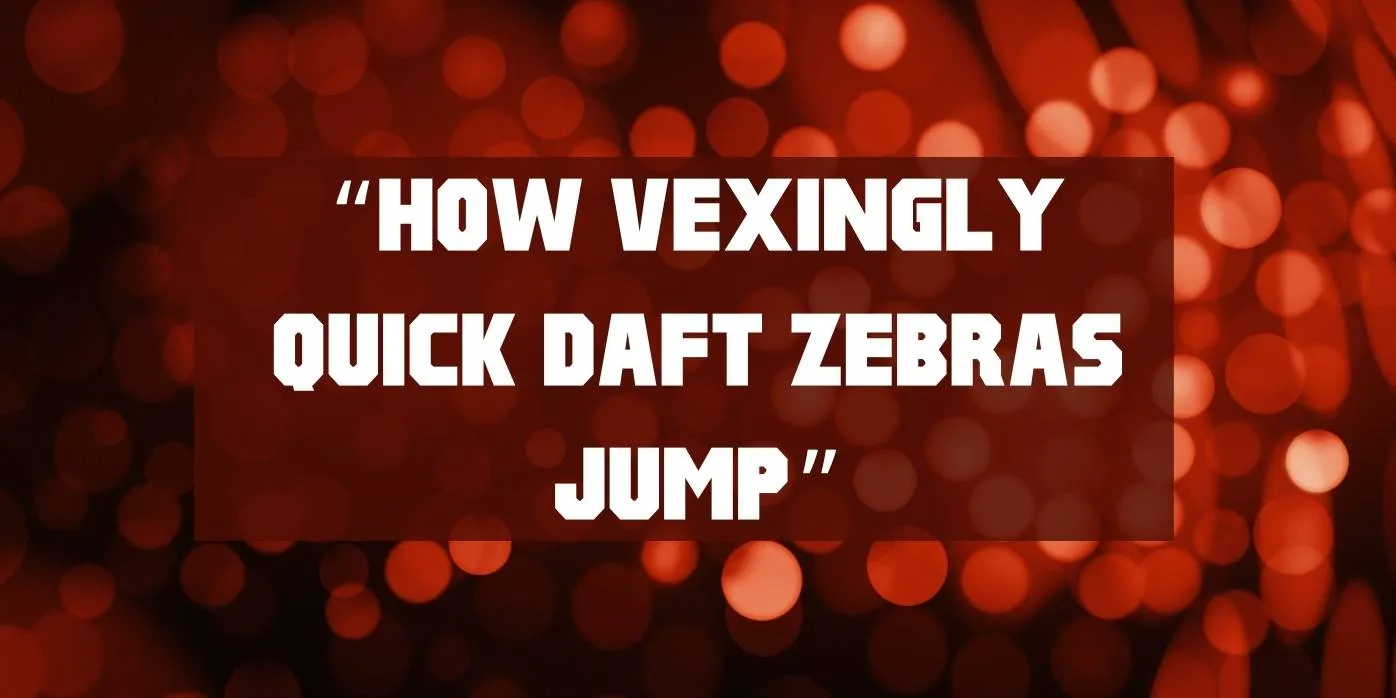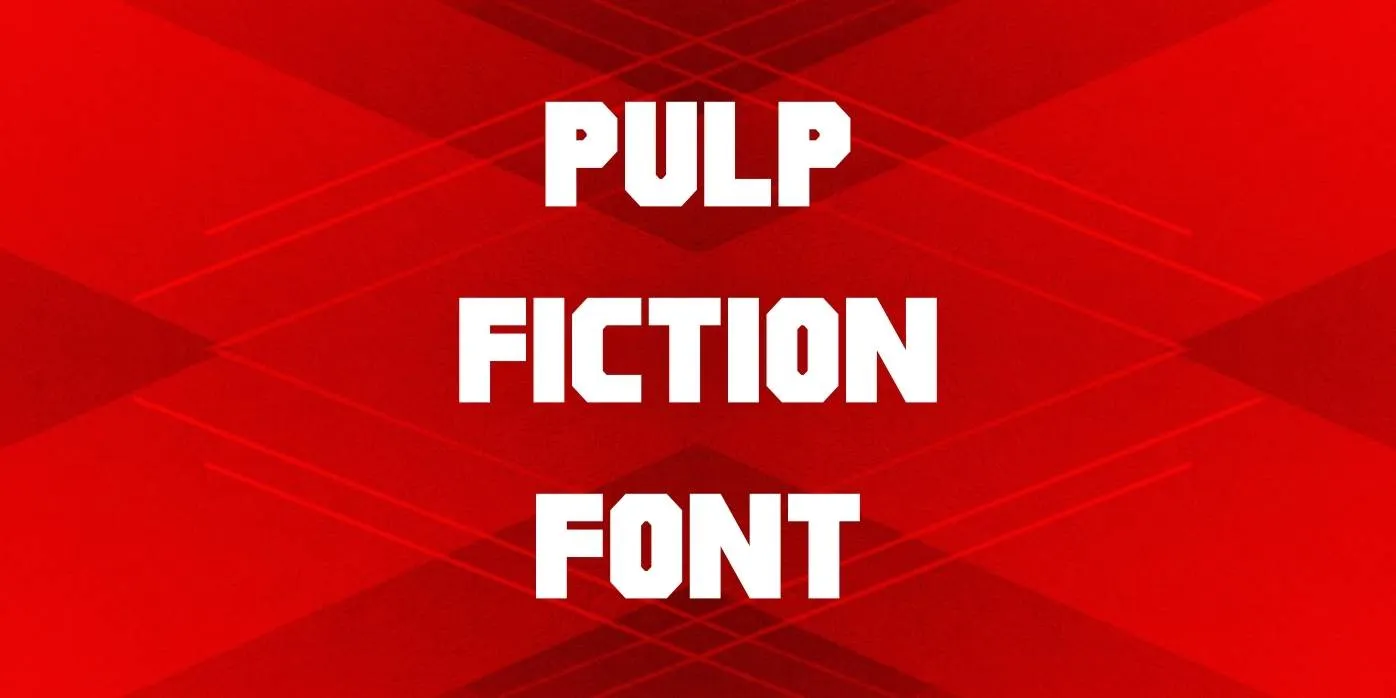
Pulp Fiction Font
Pulp Fiction Font is developed by two designers named Colin Brignall and Alan Meeks. This classic font belongs to the Display Typeface. Pulp Fiction Font has a unique look and eye-catching style. It was created in 1992 and was inspired by classic pulp magazines from the 1920s to the 1950s.
This awesome Font is available in various styles and weights. Its famous weights are regular and italic. The regular weight is perfect for body text, while the italic weight gives your text a more stylish look. This marvelous font is best for Adobe Photoshop.
This font is based on the famous movie Pulp Fiction. pulp fiction font is a very cool-looking typeface that has a unique look and style. Its tool generator is helpful for many designs. You can change your simple text to graphics designs.